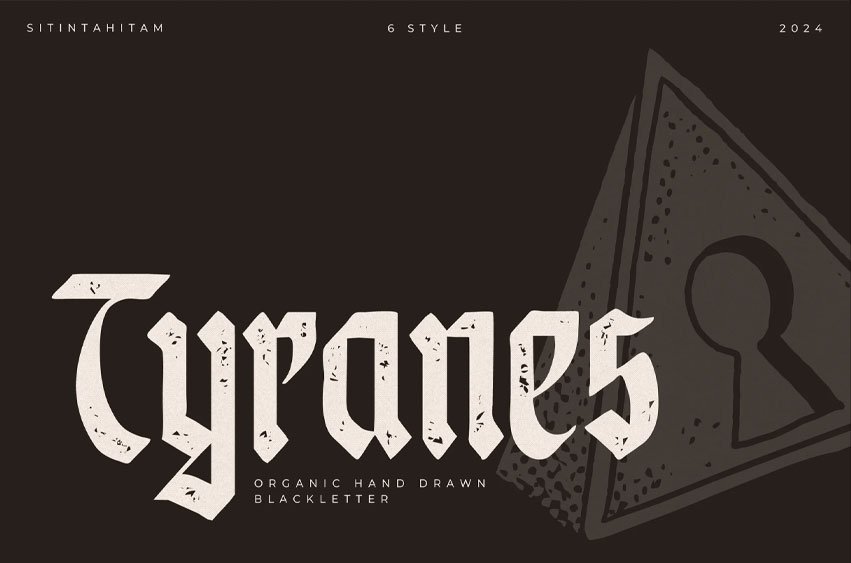
STH Tyranes Font Organic Blackletter was inspired by vintage Gothic script from the 12th century. This font has 6 styles (regular, slant, inked, inked slant, stamped, stamped slant). Perfect to create vintage logotypes, vintage posters, merchandise, etc.